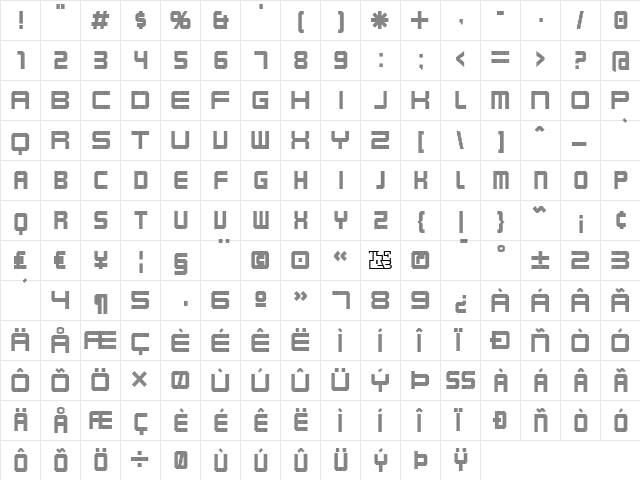
Karnivore Seven Regular
| Designer | Apostrophe |
Design Context for Karnivore Seven Typeface
Karnivore Seven takes a measured approach to typography — its balanced proportions and neutral character make it a reliable workhorse for both digital and print work.